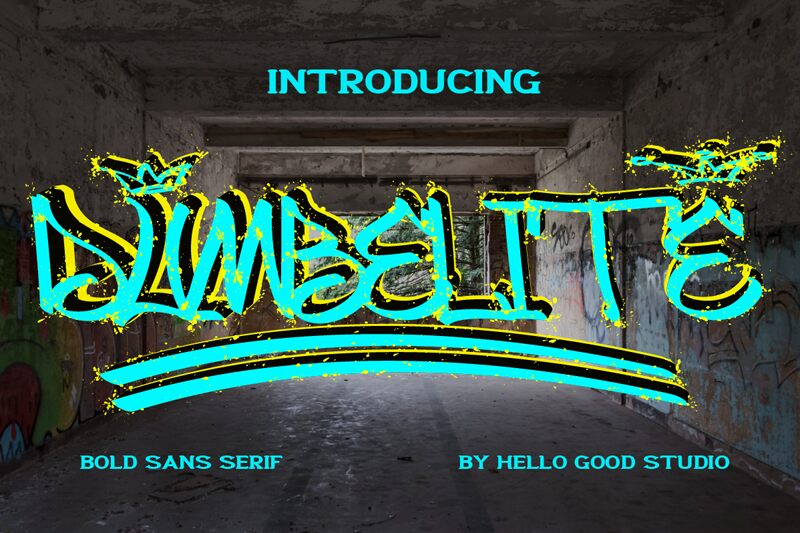
Dumbelite font by Studio Hello Good is a vibrant and urban free font that fully embodies the bold graffiti style. The aesthetic is energetic and expressive, with impactful designs that instantly capture attention. Let this typeface set the direction of your next design project and guide it headstrong toward visually pleasing results. Take advantage of the number of Opentype features like stylistic sets to make the most of this wonderful font.
Since Dumbelite draws inspiration from graffiti, an excellent context for it to be utilized would be relevant design projects like CD album art, music event posters, branding, identity, documentaries, and editorials. This is also a great typeface to use to design creative book covers, posters, packaging, apparel, merch, video game art, magazine covers, and titles.